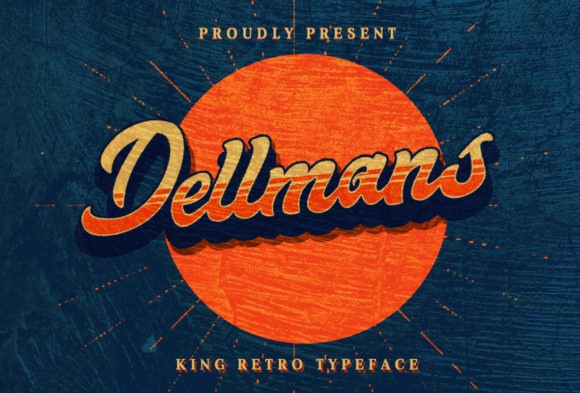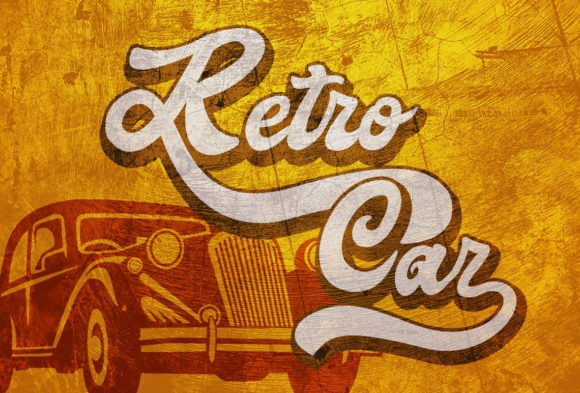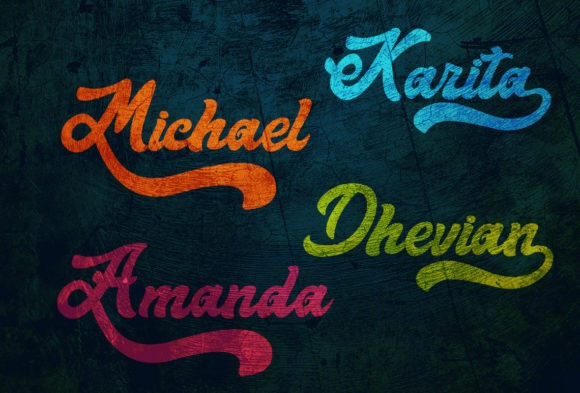
Dellmans Font
Dellmans is a retro and bold display font.This font reads as strong, confident, and dynamic and can add tons of nostalgic character to your designs. This font is PUA encoded which means you can access all of the glyphs and swashes with ease! It would look great on headlines, magazines, logos, branding and so much more!